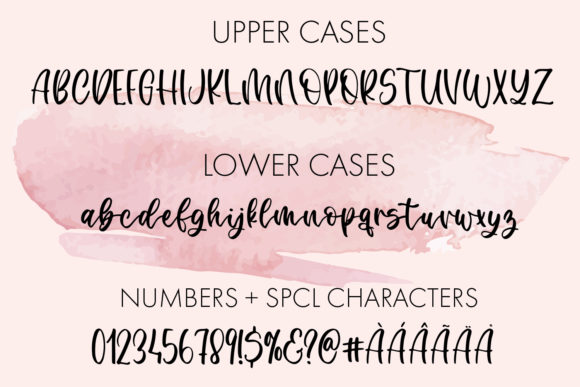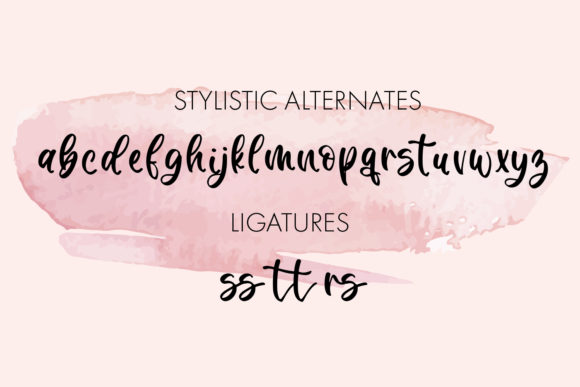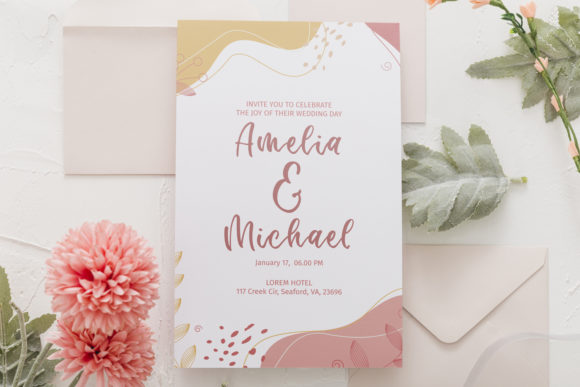
Brooklyn Font
Brooklyn is an elegant, friendly and flowing handwritten font. It looks stunning on wedding invitations, thank you cards, quotes, greeting cards, logos, business cards and every other design which needs a handwritten touch.This font is PUA encoded which means you can access all of the glyphs and swashes with ease!